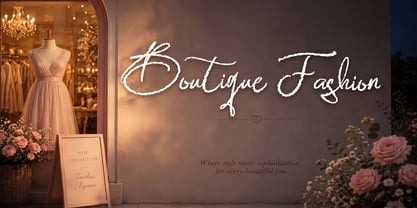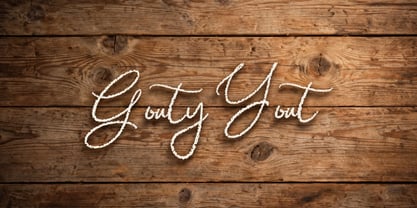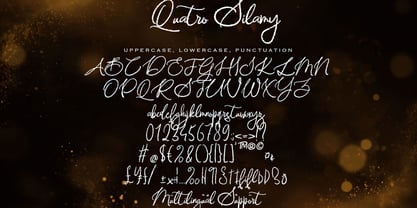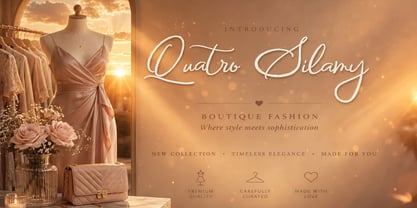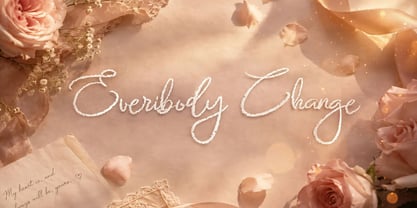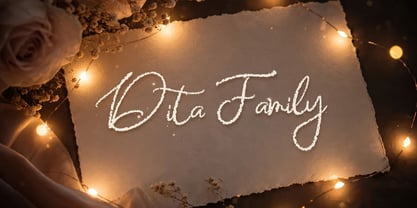
Quatro Silamy
by Ayska
The Quatro Silamy Font Family was designed by Dhoni Trihatmoko and published by Ayska. Quatro Silamy contains 1 styles. More about this family
Immerse yourself in the captivating beauty of QuatroSilamy, a font that harmoniously marries modern chic with the timeless appeal of handcrafted script. Every meticulous stroke in QuatroSilamy projects sophistication, adding a touch of refined elegance to all your digital creations. It's not just a font; it's the magical tool that enchants your blog readers, breathes life into your digital planner, personalizes your e-Invitations, and instils pure emotion into your e-cards. Experience the timeless elegance and innovative brilliance QuatroSilamy brings to your photo galleries and customized decorations. With QuatroSilamy, your common visuals are transformed into mesmerizing artistry, elevating your digital designs to new heights. Embrace the charm of QuatroSilamy; it's not just a font, but a creative beacon guiding you towards the creation of unique digital artistry. Dive into the inspirational universe of QuatroSilamy and let your artistic impulses transform into polished digital works of art.
Designers: Dhoni Trihatmoko
Foundry: Ayska